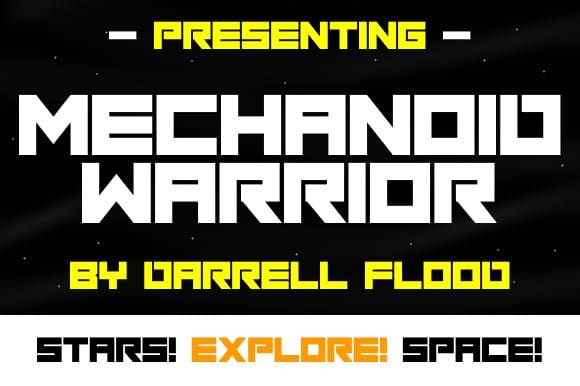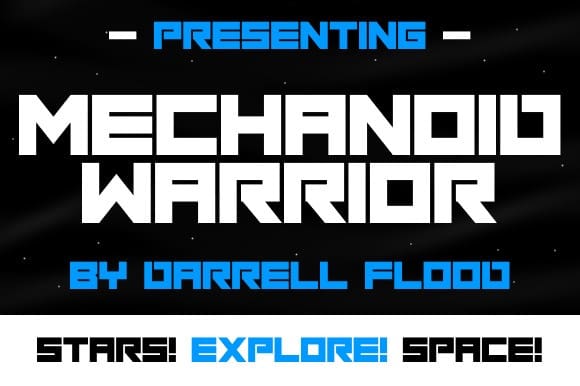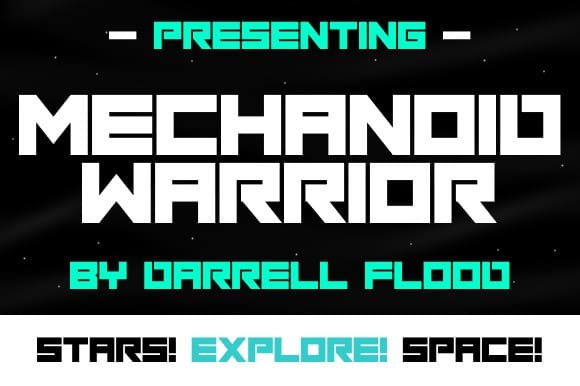
Mechanoid Warrior Font
Mechanoid Warrior Font is a hard hitting sci-fi font in a slick modern style. Perfect for futuristic settings, advanced tech themes and general modern music use!